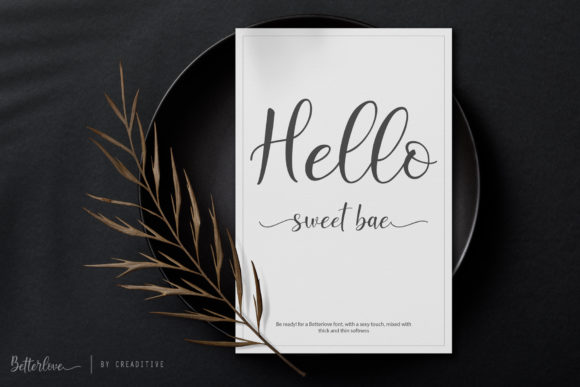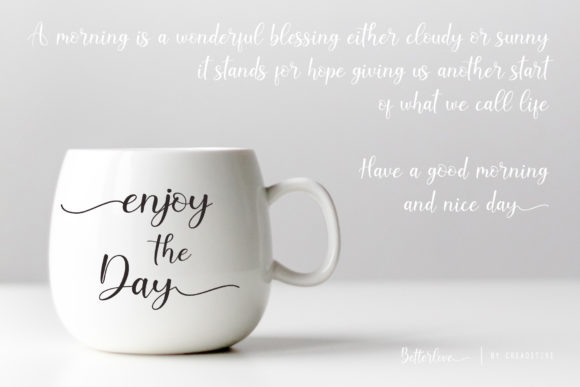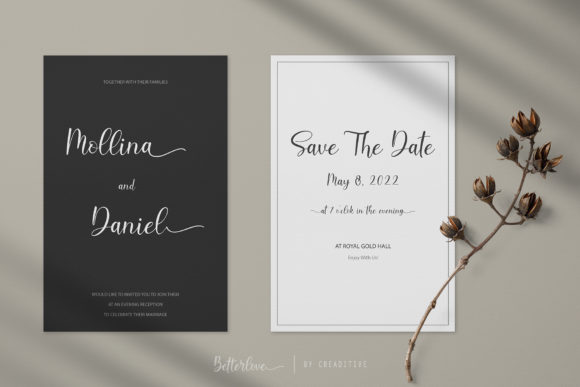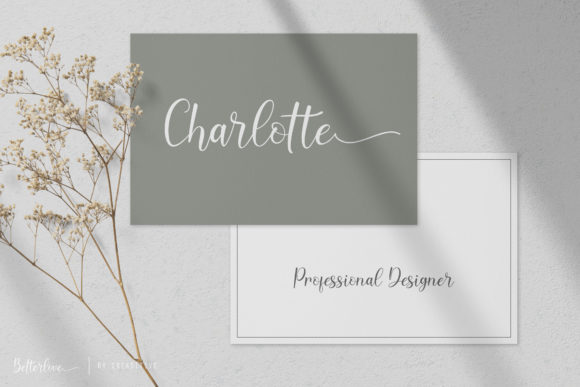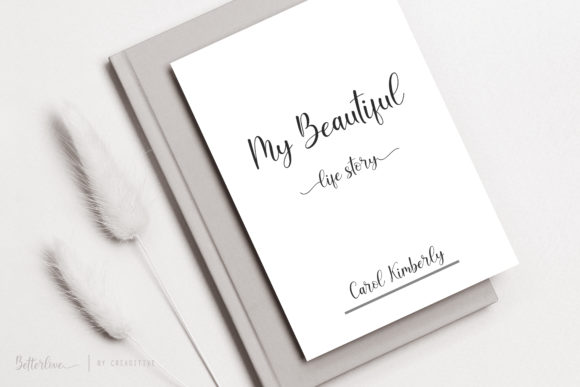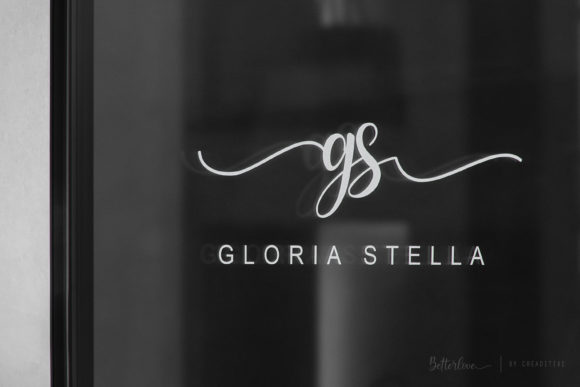
The Perfect Script for a Love Story
Have you ever been browsing through a beautiful wedding invitation or a heartfelt love letter and felt a sudden rush of emotions? That’s exactly what happens when the right words meet the perfect font. For designers, the quest for the ideal script font is a never-ending journey, and we’re thrilled to introduce you to a game-changer: the Betterlove Font.
This exquisite handwritten font is designed to add a touch of romance to any design project. Whether you’re creating wedding invitations, cards, or logos, the Betterlove Font is sure to make your designs stand out. Its PUA encoding feature allows for easy access to all glyphs and swashes, making it a valuable asset for designers who crave creativity and flexibility.
Betterlove Font Key Features
- Font Family: Betterlove Font is a unique, high-quality font family designed for various applications, including digital and print media.
- Character Set: The font family includes a wide range of characters, including Latin, Cyrillic, and Greek alphabets, as well as punctuation marks and symbols.
- Size: The font family includes multiple weight options, ranging from Light to Bold, allowing for flexibility in design and typography.
- Unique Characteristics: The Betterlove Font features a unique blend of modern and elegant design elements, making it an ideal choice for creative projects and branding materials.
Designer Review: Betterlove Font
Overall, I think the Betterlove font is a solid addition to any designer’s toolkit. Here are some things that really stand out: ✨
- Unique style**: The Betterlove font has a distinct, hand-drawn feel that sets it apart from more generic fonts.
- Expressive characters**: Each character is meticulously crafted to convey a sense of emotion and personality.
- Wide range of applications**: Whether you’re designing a logo, a brochure, or a website, the Betterlove font is versatile enough to fit the bill.
That being said, there are some limitations to consider: ⚠️
- Readability at small sizes**: While the font looks great at larger sizes, it can be a bit tricky to read at smaller sizes due to the intricate details.
- Lack of consistency**: Some characters may appear slightly inconsistent in terms of spacing or alignment.
Overall, I think the Betterlove font is a great choice for designers who want to add a touch of personality to their projects. While it may not be perfect, its unique style and expressive characters make it a valuable addition to any design toolkit.
Use the Betterlove Font in conjunction with soft colors and pastel shades for a romantic and whimsical look.
The Betterlove Font is perfect